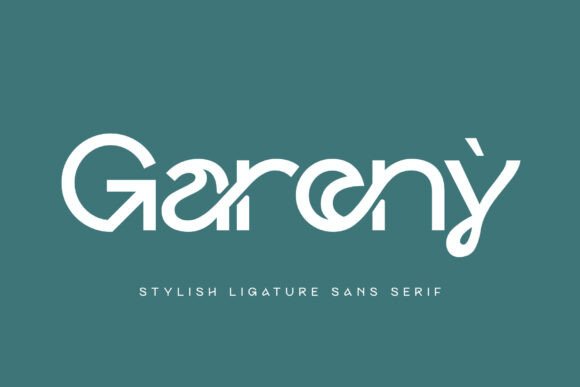
Introducing Gareny Font: Elevate Your Brand’s Visibility with a Striking and Captivating Typeface
In the competitive world of branding, making a lasting impression is crucial. Your brand’s visual identity is often the first point of contact with your audience, and it’s essential to make it count. A well-designed font can play a significant role in shaping your brand’s personality and setting it apart from the competition. This is where Gareny Font comes into play – a modern, eye-catching typeface designed to elevate your brand’s visibility and make it stand out in a crowded market.
The Birth of Gareny Font: A Perfect Blend of Style and Functionality
Gareny Font is the result of a meticulous design process aimed at creating a typeface that embodies the perfect balance of style and functionality. Its clean lines and dynamic visuals make it an ideal choice for creating modern, eye-catching logos that capture the essence of your brand. Whether you’re a startup looking to establish a strong brand identity or an established business seeking to refresh your image, Gareny Font is the perfect tool to help you achieve your goals.
Key Features of Gareny Font: What Makes it Stand Out
So, what sets Gareny Font apart from other typefaces? Here are some of its key features that make it an excellent choice for brands looking to make a statement:
- Clean Lines: Gareny Font boasts clean, crisp lines that give it a modern and sophisticated look. This makes it perfect for brands that want to convey a sense of professionalism and elegance.
- Dynamic Visuals: The font’s dynamic visuals add a touch of creativity and playfulness, making it ideal for brands that want to stand out from the crowd.
- Versatility: Gareny Font is designed to be versatile, making it suitable for a wide range of applications, from logos and branding to headlines and body text.
- Legibility: The font’s excellent legibility ensures that your message is conveyed clearly and effectively, regardless of the context in which it’s used.
Why Choose Gareny Font for Your Brand?
With so many fonts available, why should you choose Gareny Font for your brand? Here are some compelling reasons to consider:
- Enhance Your Brand’s Visibility: Gareny Font is designed to grab attention and make your brand stand out in a crowded market.
- Convey Your Brand’s Personality: The font’s unique blend of style and functionality allows you to convey your brand’s personality and values effectively.
- Future-Proof Your Brand: Gareny Font is designed to be timeless, ensuring that your brand’s visual identity remains relevant for years to come.
- Easy to Use: The font is easy to use and integrate into your brand’s visual identity, making it a hassle-free addition to your design arsenal.
How to Use Gareny Font Effectively
Now that you’ve chosen Gareny Font for your brand, here are some tips on how to use it effectively:
- Pair it with Other Fonts: Experiment with pairing Gareny Font with other fonts to create a unique visual identity.
- Use it Consistently: Consistency is key when it comes to branding. Use Gareny Font consistently across all your marketing channels to create a cohesive look.
- Experiment with Colors: Don’t be afraid to experiment with different colors to find the perfect combination that reflects your brand’s personality.
- Keep it Simple: Remember, sometimes less is more. Keep your design simple and let Gareny Font do the talking.
In conclusion, Gareny Font is a striking and captivating typeface designed to elevate your brand’s visibility and make it stand out in a crowded market. Its clean lines, dynamic visuals, and versatility make it an excellent choice for brands looking to create a modern, eye-catching visual identity. By choosing Gareny Font, you’re not just selecting a font – you’re investing in a powerful tool that can help you convey your brand’s personality, values, and message effectively.
FAQs About Gareny Font
- What is Gareny Font? Gareny Font is a modern, eye-catching typeface designed to enhance your brand’s visibility and make it stand out in a crowded market.
- What makes Gareny Font unique? Gareny Font’s unique blend of clean lines and dynamic visuals sets it apart from other typefaces.
- Is Gareny Font versatile? Yes, Gareny Font is designed to be versatile, making it suitable for a wide range of applications.